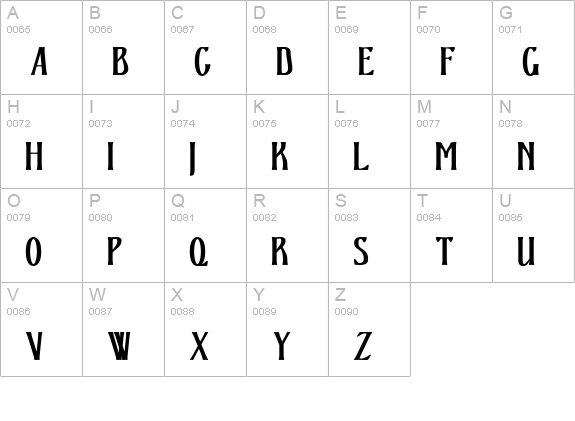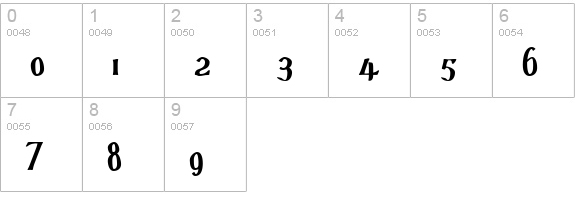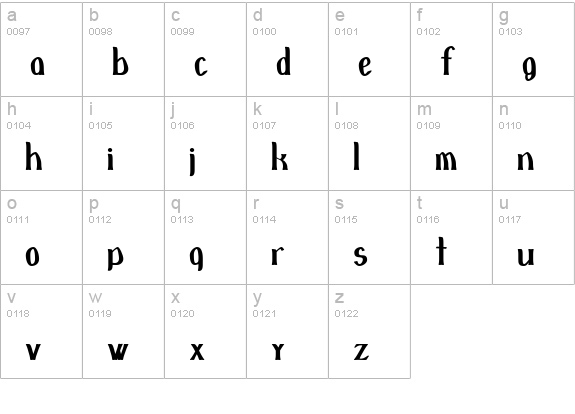
d'SpenserBold Font Details
d'SpenserBold font is a stylish and bold typeface that exudes confidence and modernity. With its strong, clean lines and distinctive curves, this font is sure to make a statement in any design project. Whether you are creating a logo, poster, or website, d'SpenserBold font will add a touch of sophistication and elegance. What sets d'SpenserBold font apart is not only its striking design but also the fact that it is available for free download at FontsMarket.com. This means that you can easily access this high-quality font without any cost, making it a valuable addition to your font library. Don't miss out on the opportunity to enhance your designs with d'SpenserBold font and make a lasting impression on your audience.